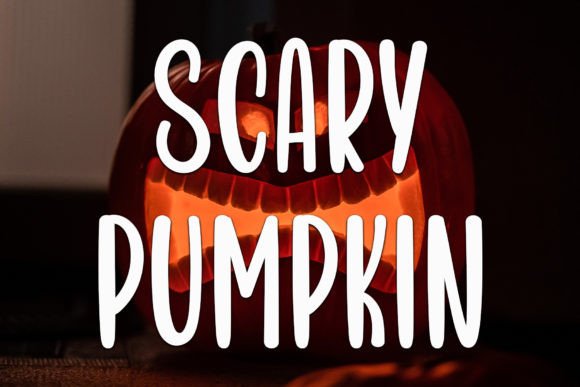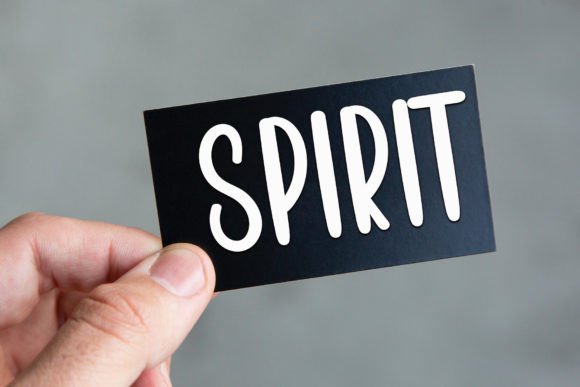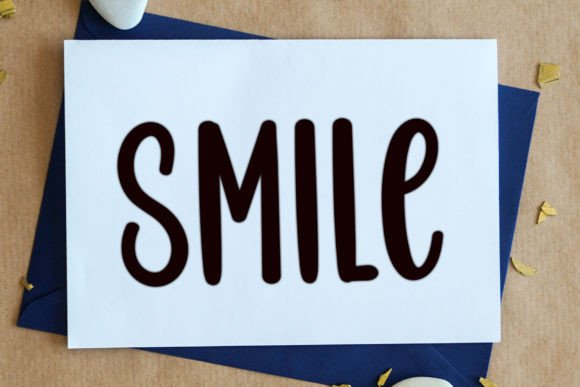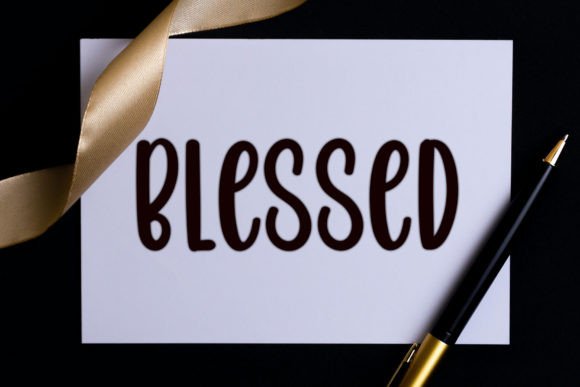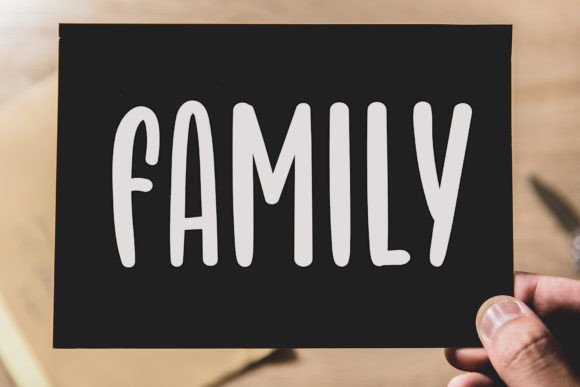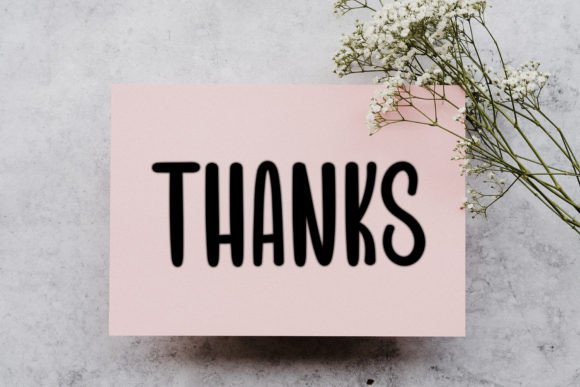
Introducing Ghost Font: The Epitome of Modern Elegance
In the realm of typography, fonts play a pivotal role in shaping the visual identity of a project. Among the myriad of fonts available, Ghost Font stands out for its sleek, minimalist design that exudes a sense of modern sophistication. Designed to make a subtle yet stylish statement, Ghost Font is an excellent choice for designers and crafters looking to elevate their projects with a touch of elegance.
The Design Philosophy of Ghost Font
Ghost Font is characterized by its clean lines and contemporary feel, making it an ideal choice for projects that demand a modern aesthetic. The font’s simplicity is its strongest suit, allowing for easy readability across various mediums. This feature is particularly beneficial for headlines, titles, and branding that seek a subtle yet sophisticated touch.
Key Features of Ghost Font
- Minimalist Design: Ghost Font boasts a minimalist design that ensures your message is conveyed without any unnecessary distractions.
- Clean Lines: The font’s clean lines contribute to its contemporary feel, making it perfect for modern projects.
- Easy Readability: Despite its subtlety, Ghost Font does not compromise on readability, ensuring that your content is easily digestible by your audience.
- Versatility: Ghost Font can be used across a variety of platforms, from digital media to print, making it a versatile addition to your typography arsenal.
Applications of Ghost Font
Ghost Font’s unique blend of style and simplicity makes it suitable for a wide range of applications. Here are some of the most notable uses:
- Branding: For businesses looking to establish a modern and sophisticated brand image, Ghost Font can be a valuable asset.
- Headlines and Titles: The font’s readability and stylish appearance make it perfect for headlines and titles in editorials, websites, and marketing materials.
- Packaging: Ghost Font can add a touch of elegance to product packaging, making it stand out on store shelves.
- Digital Media: Whether it’s for a website, social media post, or digital advertisement, Ghost Font can help convey your message with style.
Tips for Using Ghost Font Effectively
To maximize the impact of Ghost Font, consider the following tips:
- Pair with Complementary Fonts: For body text, pair Ghost Font with a more traditional font to create a balanced look.
- Experiment with Spacing: Adjusting the spacing between letters and lines can further enhance the font’s readability and aesthetic appeal.
- Use Contrast: Utilize contrast through color and size to make your text stand out, especially when used for headlines.
Ghost Font is a versatile and stylish addition to any designer’s toolkit. Its minimalist design, coupled with its readability and modern feel, makes it an excellent choice for a wide range of projects. Whether you’re working on branding, editorial design, or digital media, Ghost Font can help you achieve a sophisticated and contemporary look. Embrace the elegance of Ghost Font and elevate your designs to new heights.
- What is Ghost Font?
- Ghost Font is a sleek and minimalist display font designed for modern projects, characterized by its clean lines and easy readability.
- Is Ghost Font suitable for body text?
- While Ghost Font is primarily designed for headlines and titles, its readability makes it suitable for short body texts. However, for longer texts, a more traditional font might be more appropriate.